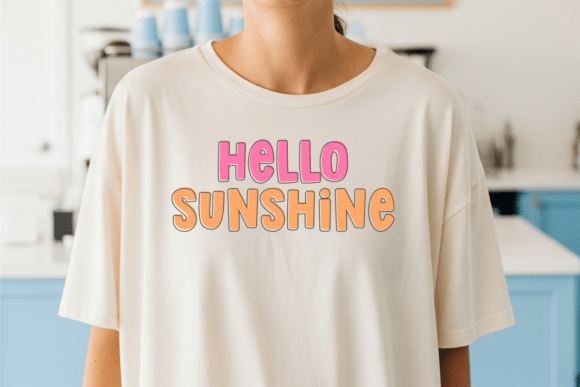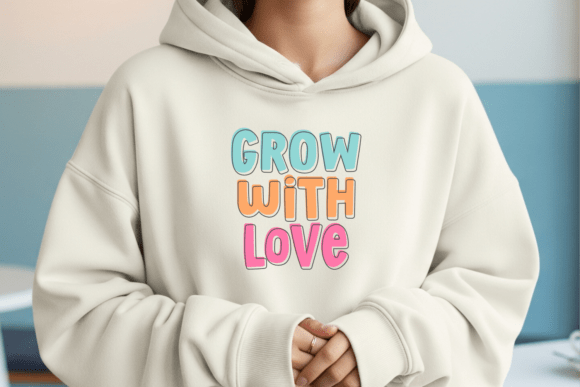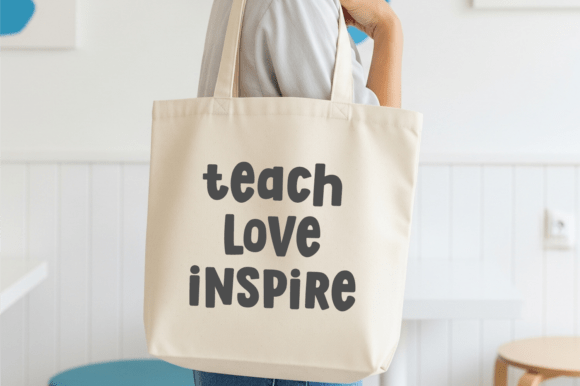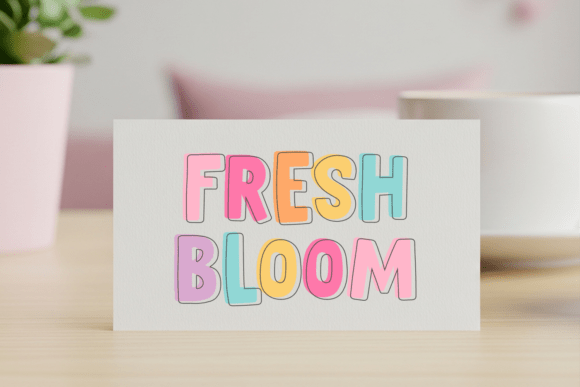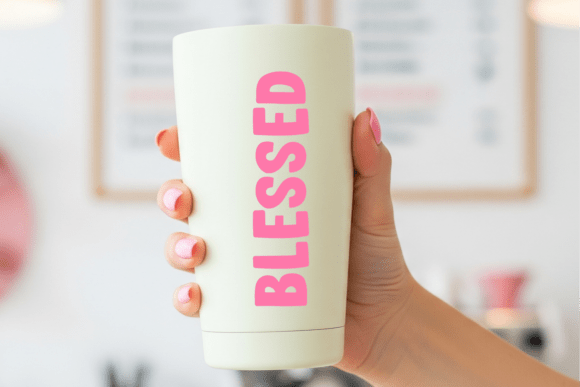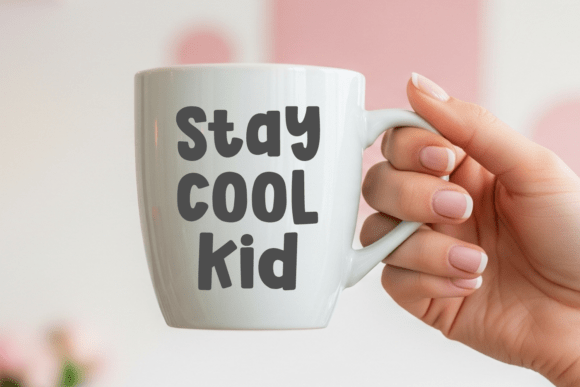
Unlocking Whimsy in Your Designs
Do you remember the thrill of creating a handmade card for a loved one or designing a birthday banner for a special child? Those moments of pure creativity and joy are what drive us to keep pushing the boundaries of our imagination. As designers, we’re constantly on the lookout for the perfect tools to bring our ideas to life, and that’s where Charming Chunky Font comes in – a delightful display font designed to radiate fun and positivity.
This charming typeface is a must-have for anyone looking to infuse their projects with a friendly and approachable aesthetic. With its soft, rounded edges and bubbly personality, Charming Chunky Font is the ultimate choice for designers seeking to create a lasting impression. Whether you’re working on kids’ branding, nursery decor, or playful product packaging, this versatile font ensures your message is both eye-catching and easy to read.
Key Features of “Charming Chunky Font”
- Unique Characteristics: The font features a distinctive, chunky design with rounded edges and a friendly feel, making it perfect for creating eye-catching headings and titles.
Charming Chunky Font Review
Overall, I think the Charming Chunky Font is a great choice for projects that need a playful, eye-catching font. ✨ Its chunky texture and rounded edges make it perfect for use in titles, headings, and other display text.
Here are some things that I think work well with this font:
- Easy to read: Despite its chunky appearance, the font is surprisingly easy to read, even at smaller sizes.
- Highly customizable: The font offers a range of weights and styles, making it easy to adapt to different design projects.
- Perfect for hand-drawn or distressed designs: The font’s textured, organic feel makes it a great fit for projects that need a more handmade or distressed look.
However, there are a few limitations to be aware of:
- Limited legibility at small sizes: While the font is easy to read at larger sizes, it can become difficult to decipher at smaller sizes.
- Not ideal for body text: Due to its chunky texture, the font is not well-suited for use in body text, where legibility is crucial.
- May not be suitable for formal designs: The font’s playful, casual feel may not be suitable for formal or professional design projects.
Overall, I think the Charming Chunky Font is a great choice for designers who need a fun, eye-catching font for titles, headings, and other display text. Just be aware of its limitations and use it accordingly.
Charming Chunky Font is perfect for creating eye-catching headings, titles, and quotes. Use it to add a touch of whimsy and personality to your designs. Some common use cases include:
- Food and drink branding
- Quirky social media graphics